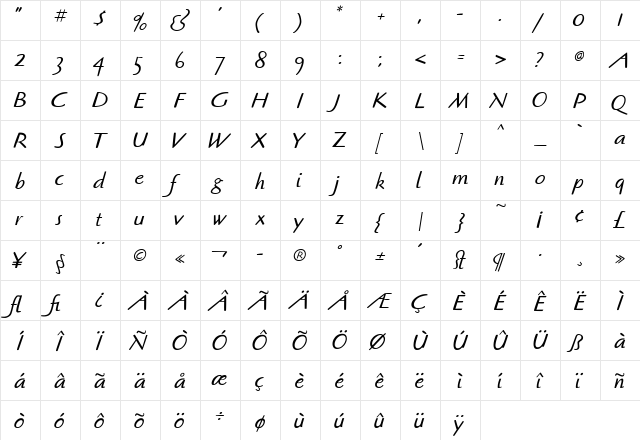
AIOzBrush Italic
Design Context for AIOzBrush Typeface
AIOzBrush brings a calligraphic fluidity to the page — its connecting strokes and expressive curves give it an unmistakably human quality.
Font Pairing: Combine AIOzBrush with a simple geometric sans for maximum contrast — the tension between flowing curves and clean structure is a classic typographic pairing.
Pro Tip: Use AIOzBrush for short runs of text — names, titles, or taglines. Extended body copy in script faces tires the eye quickly.